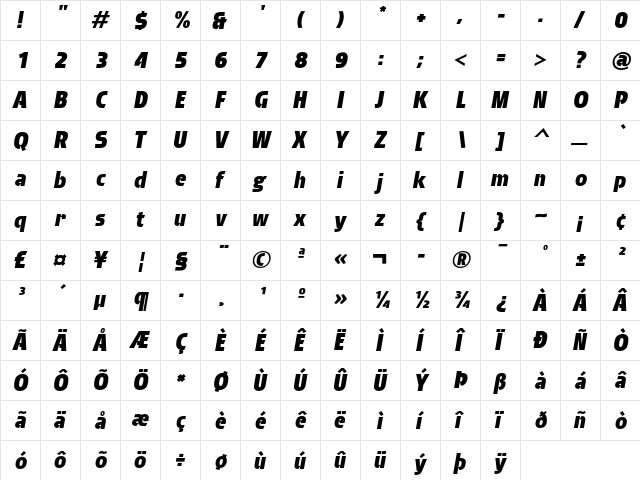
Brda LT Std Extra Bold Italic
| Foundry | Linotype GmbH |
| Designer | Franciszek Otto |
Design Context for Brda LT Std Typeface
Brda LT Std takes a measured approach to typography — its balanced proportions and neutral character make it a reliable workhorse for both digital and print work. Its italic angle brings a sense of urgency and motion to the letterforms. Its bold stroke weight gives it real presence on the page.
Pro Tip: Use Brda LT Std for emphasis, pull quotes, and subheadings where its slanted energy can add rhythm to the layout.